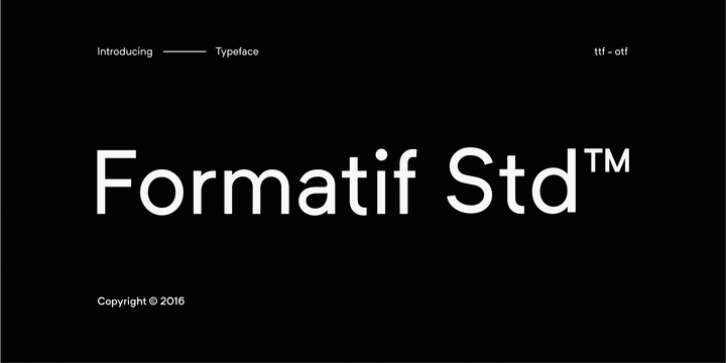
Deni Anggara
Degarism Studio
FORMATIF STD is a modern style sans serif typeface, simple and strong. A family of 5 Weights with Oblique styles, designed for flexibility, proportions and better balance with carefully crafted diacritics and extensive kerning.